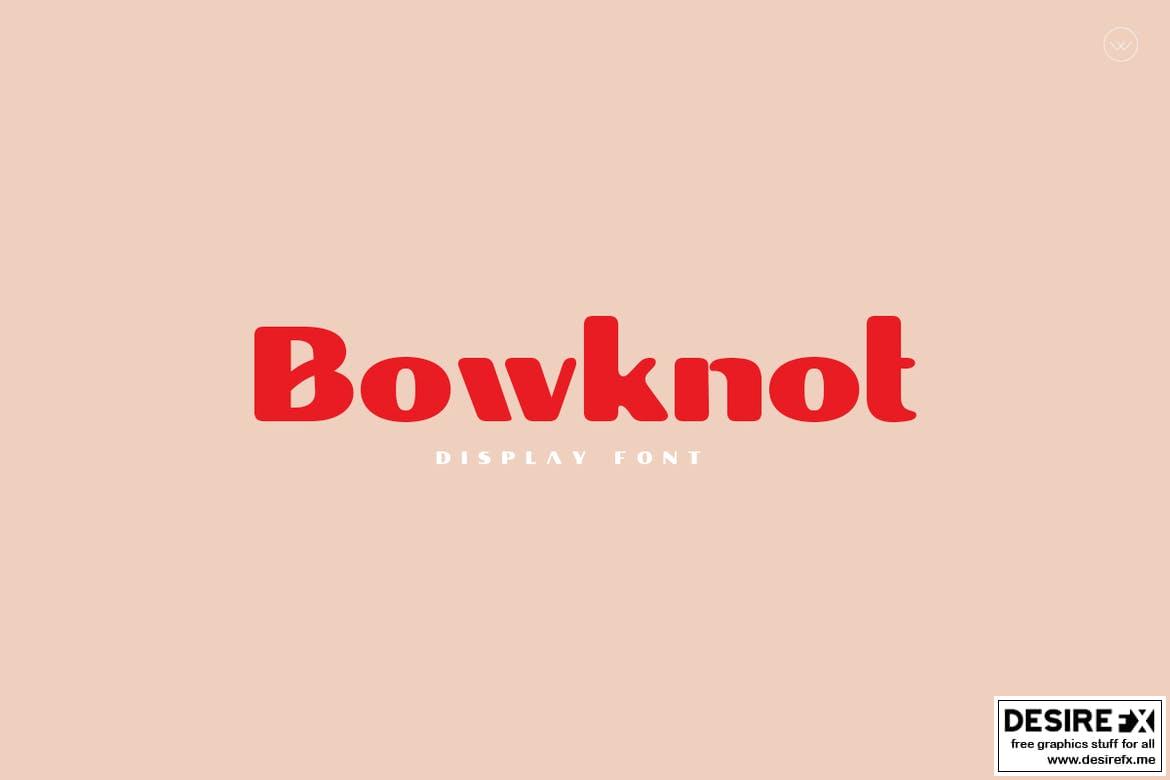
Bowknot Unique Display Font
Bowknot Display Typeface
Bowknot is a modern, clean and stylish Display font. It is well suited for book covers, Headlines, crafts, branding, advertising, scrapbooking and more. Its OpenType features provide beautiful ligatures and stylistic alternates that give your typography a different appearance.